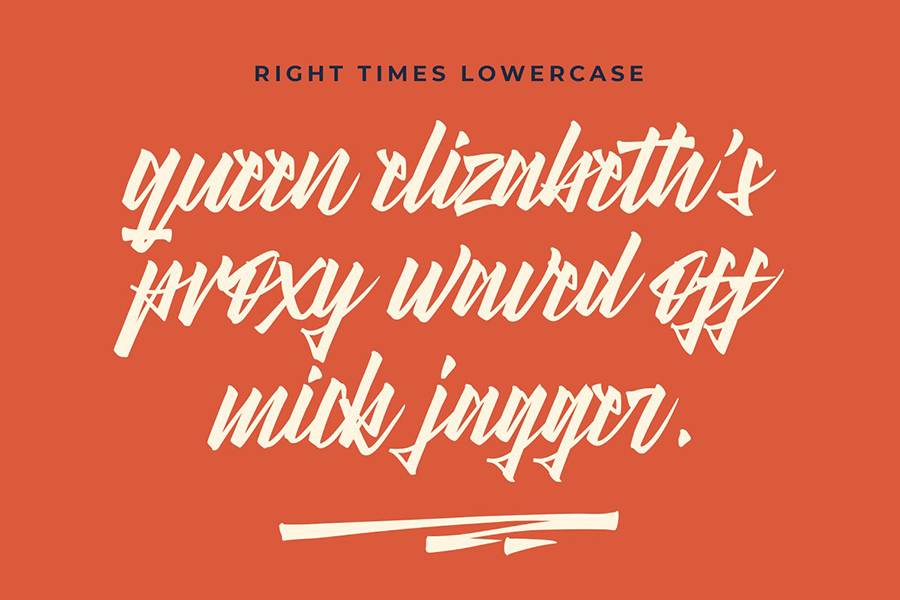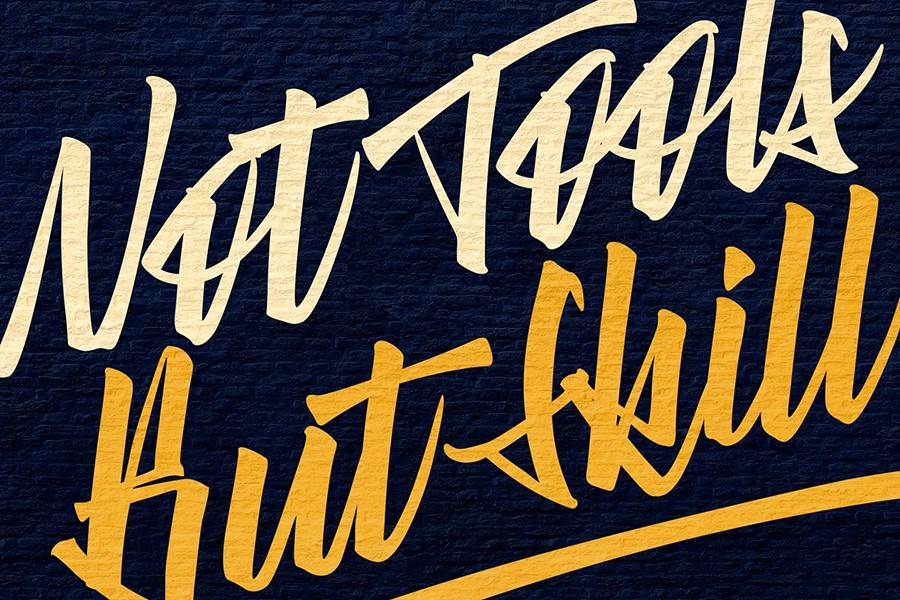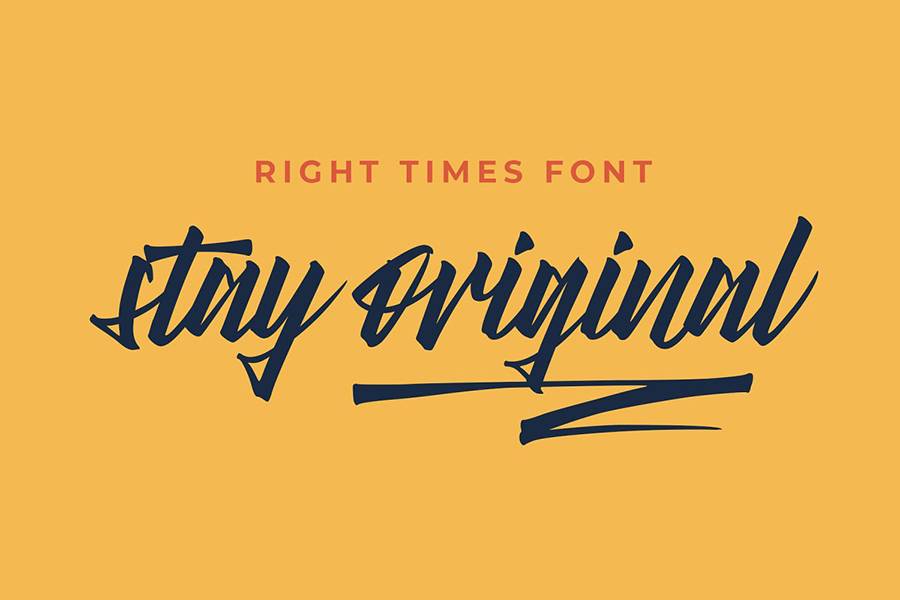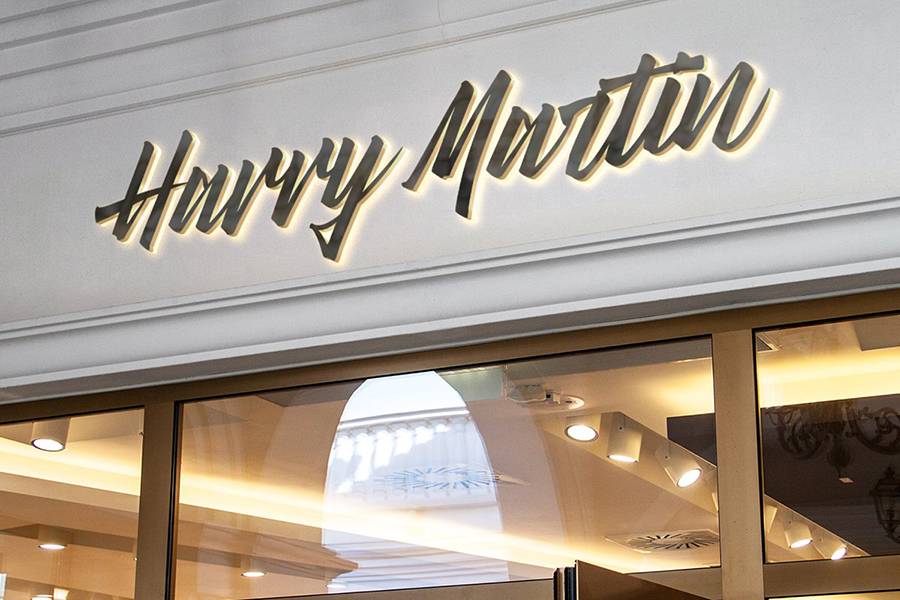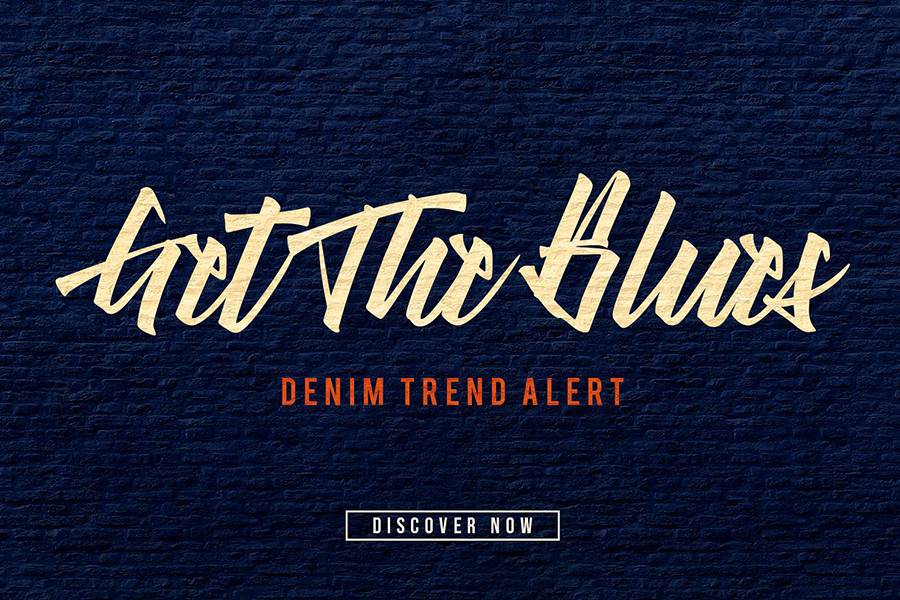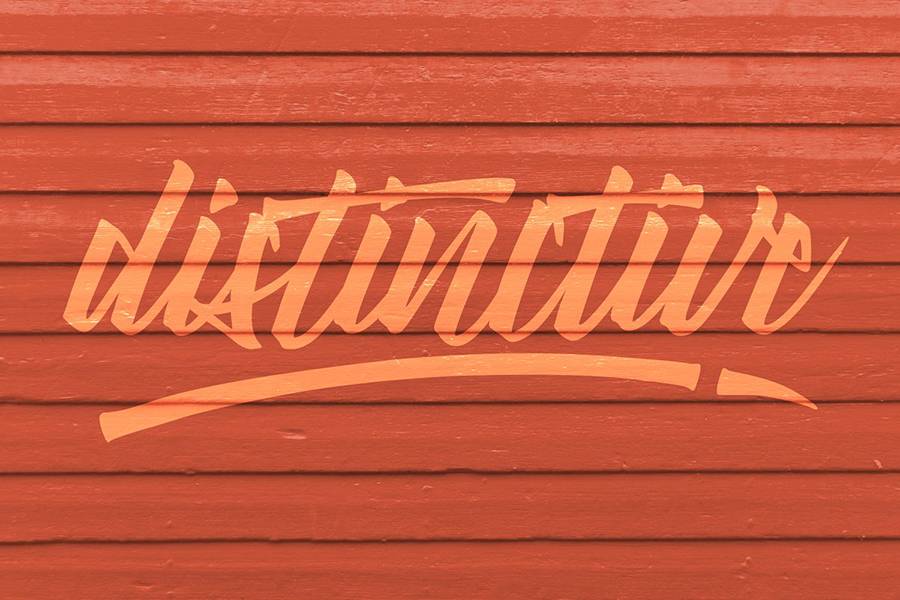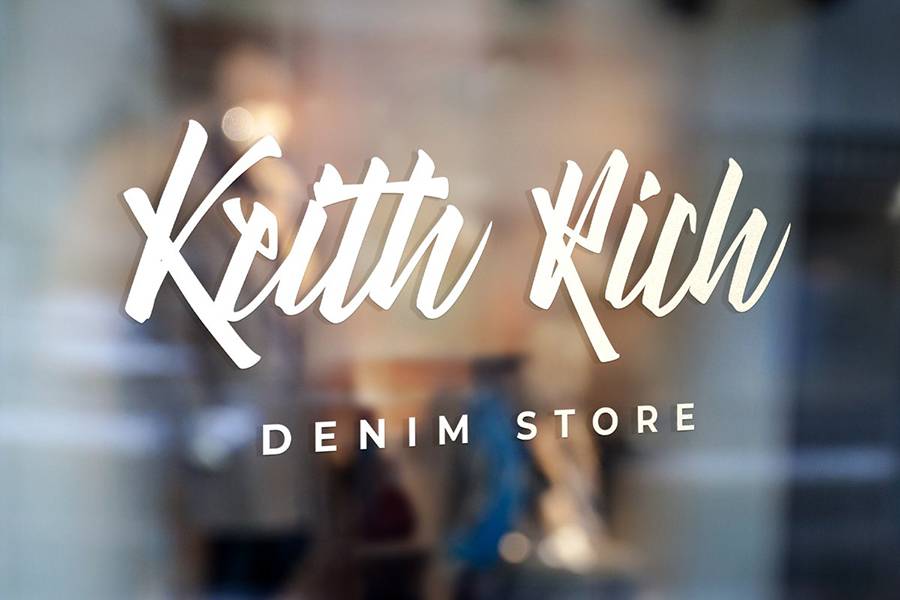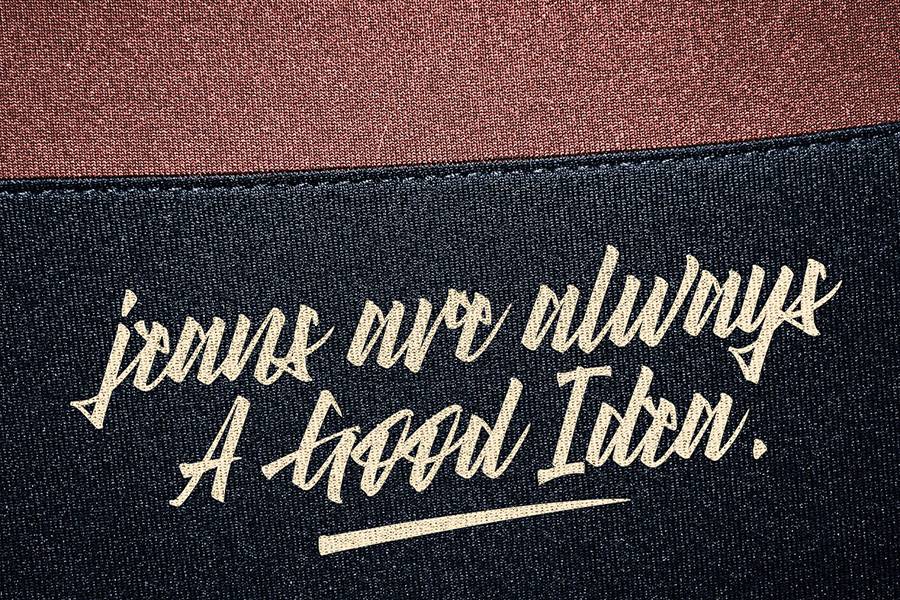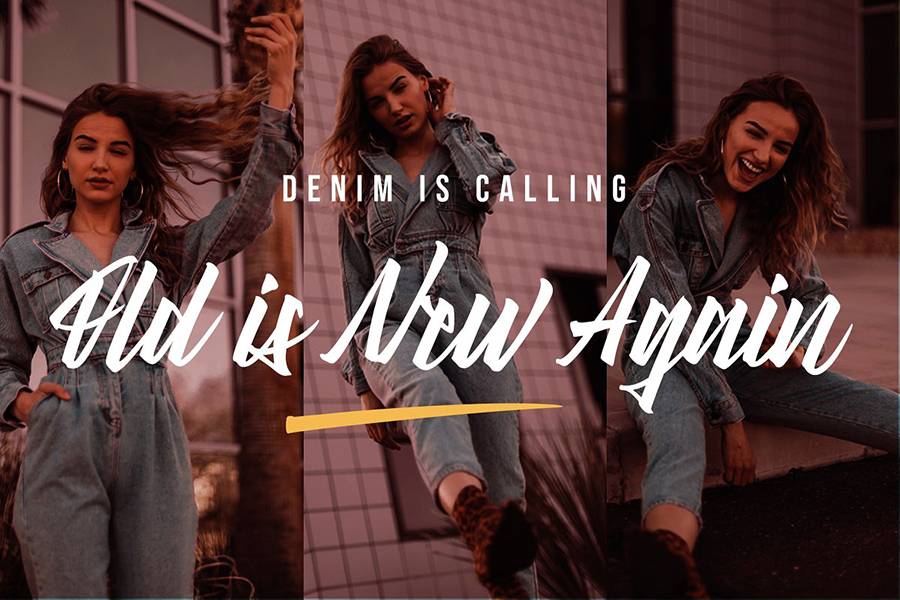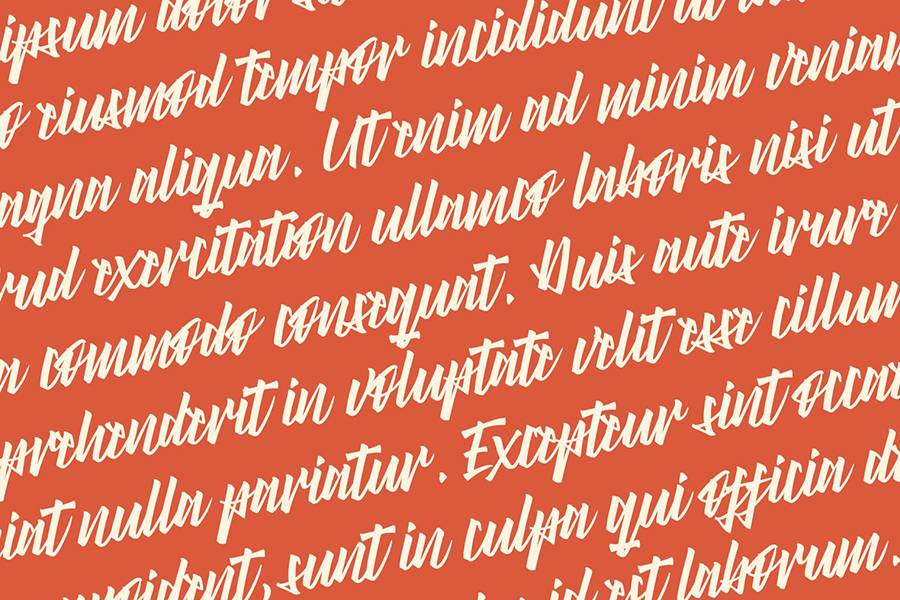
Right Times Brush Script is a bold, energetic script font that mimics the rough, dynamic strokes of a brush pen. Its tall, narrow letterforms with sharp angles and varying thicknesses give it a lively, urban feel, making it ideal for expressive, eye-catching headlines, logos, and creative branding that aims to convey movement and personality. This font works best in situations where a strong, informal, and artistic vibe is desired.
Right Times Brush Script
About Right Times Brush Script